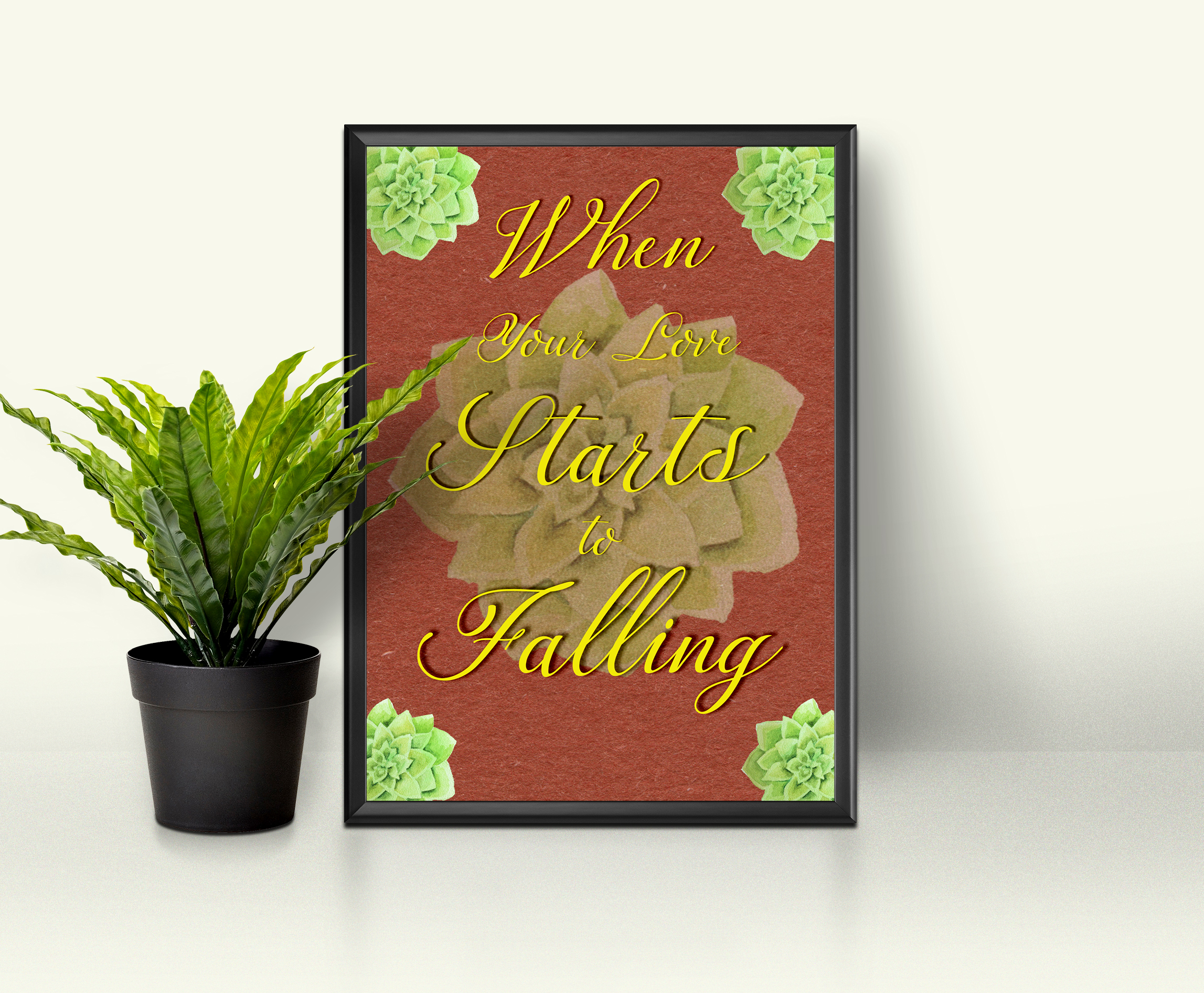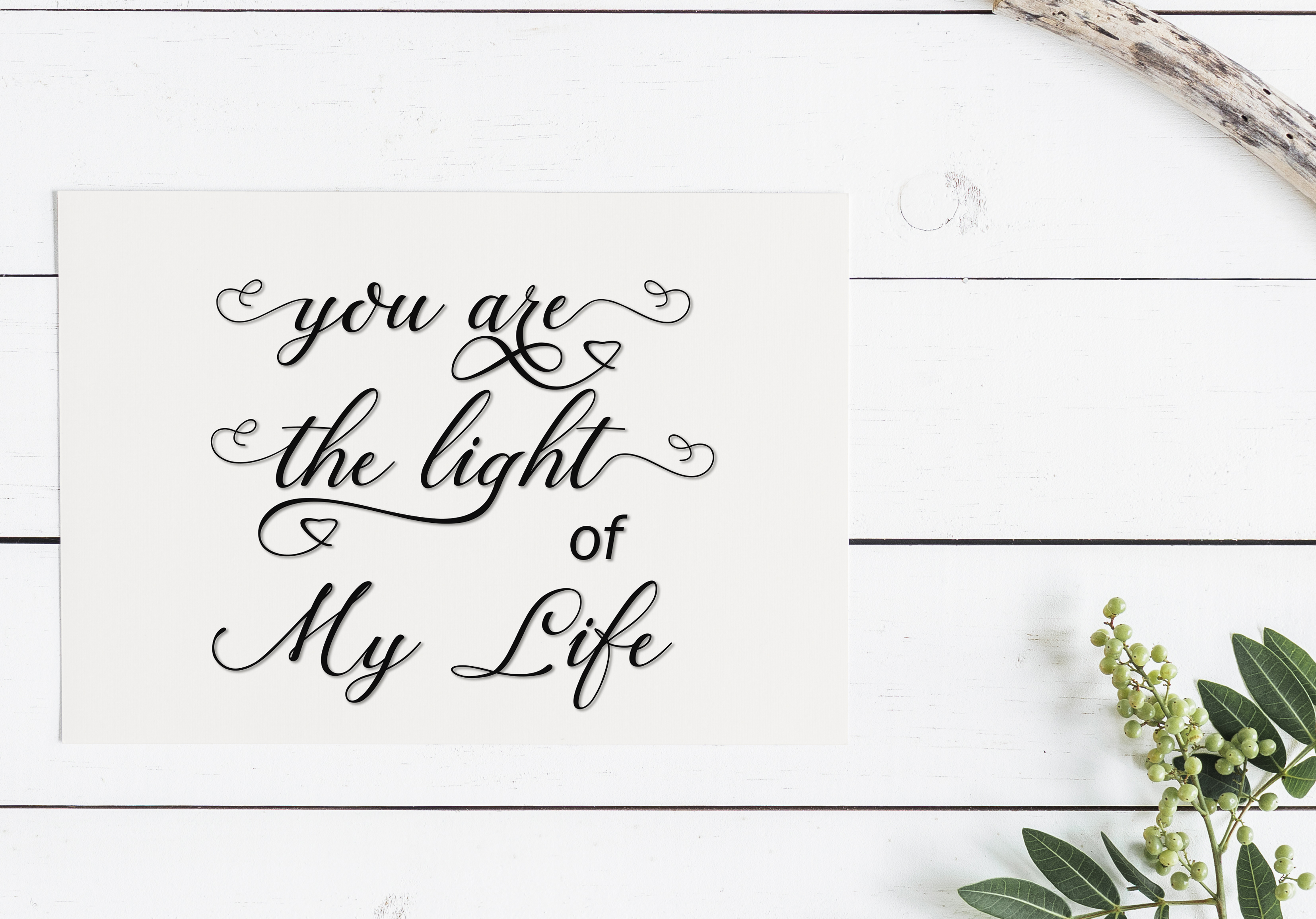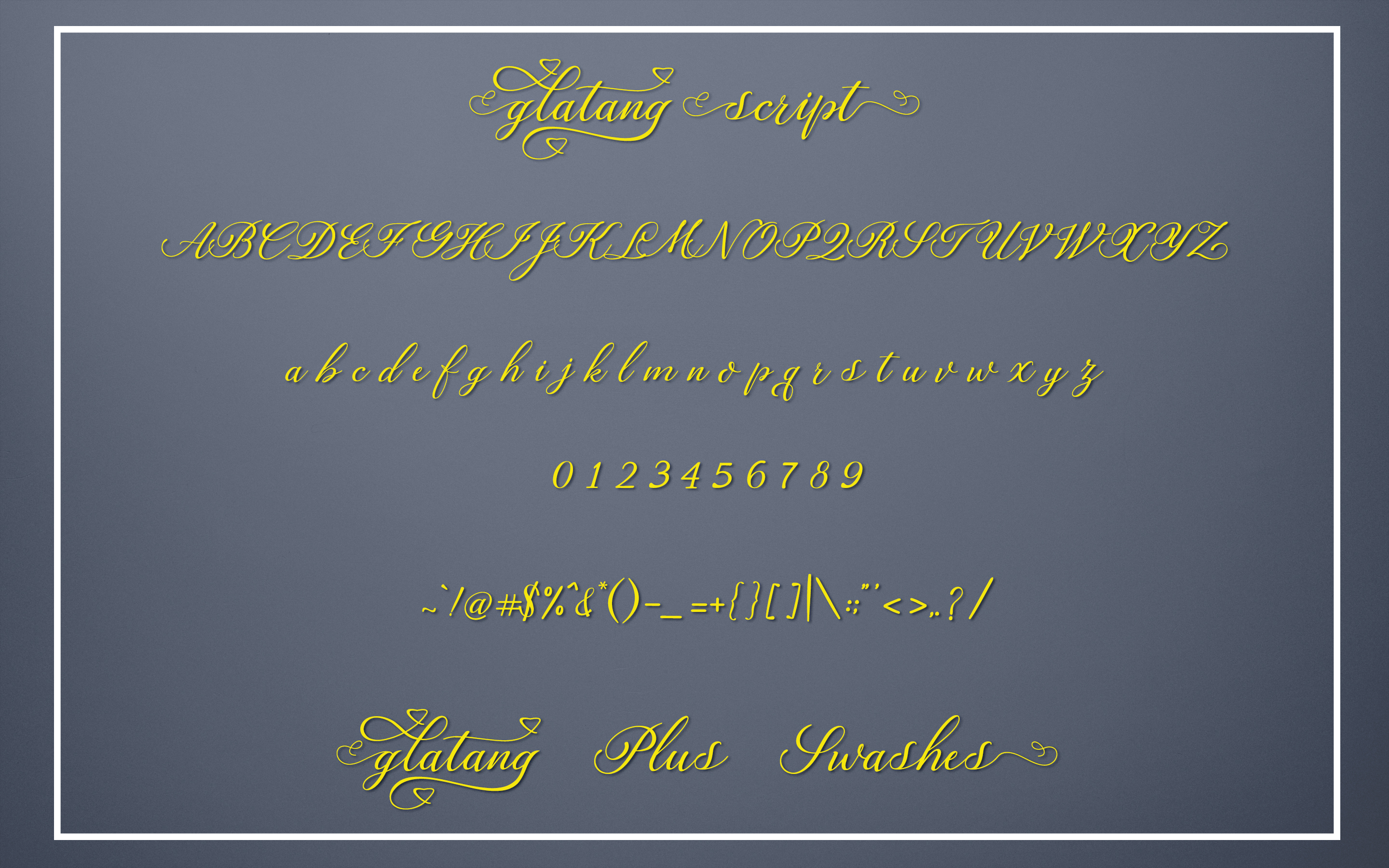
The Glatang Script Font: A Timeless Beauty for Your Designs
I’ll never forget the time I was working on a project for a client who wanted a elegant, yet modern script font to brand their new product line. I spent hours scouring through font libraries, trying to find the perfect fit. That’s when I stumbled upon Glatang, a beautiful script font that effortlessly walked the line between classic and modern sensibilities.
As I explored Glatang further, I fell in love with its willowy strokes, carefully considered flourishes, and neat overall aesthetic. It was as if the font was made for my client’s project. In this article, I’ll share my experience with Glatang, its features, and how to make the most of it in your designs.
An Honest Review of Glatang
What I Love About Glatang ✨
- ✅ Elegant and modern script style that’s versatile for various projects
- ✅ Beautifully crafted flourishes that add a touch of sophistication
- ✅ Clean and neat text that looks great in both print and digital formats
While Glatang is an excellent font, there are a few things to keep in mind:
- 🤔 Some users may find the font a bit too slender for certain design applications
- ⚠️ Limited availability of bold or heavy weights, which may not be suitable for all designs
The Story Behind Glatang
Glatang was designed by a team of typographers who aimed to create a font that would blend classic elegance with modern sensibilities. Inspired by traditional calligraphy and script fonts, Glatang was crafted to be versatile, legible, and beautiful. Whether you’re working on a branding project, a wedding invitation, or a social media graphic, Glatang is an excellent choice.
Q: What is the best use for Glatang?
A: Glatang is suitable for a variety of projects, including branding, advertising, packaging, and digital designs. Its elegant and modern script style makes it perfect for projects that require a touch of sophistication.
Q: Is Glatang available in different weights?
A: Glatang is available in a range of weights, including regular, italic, and bold. However, the font may not have a wide range of weights, so it’s best to check the font’s specifications before using it.